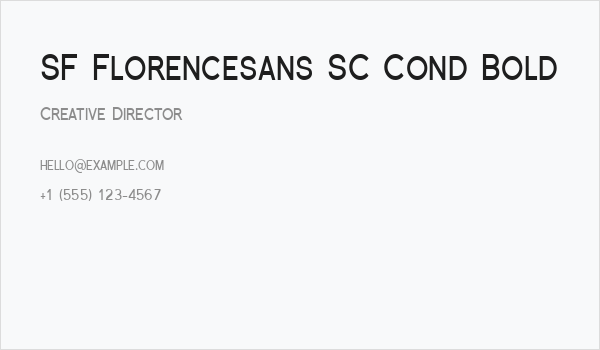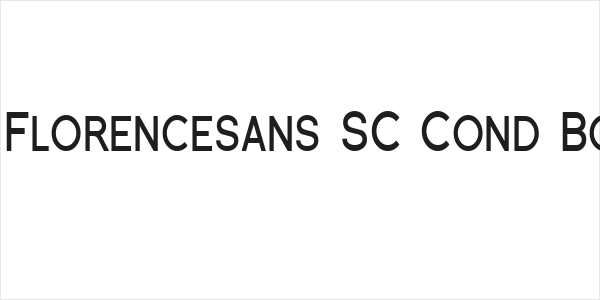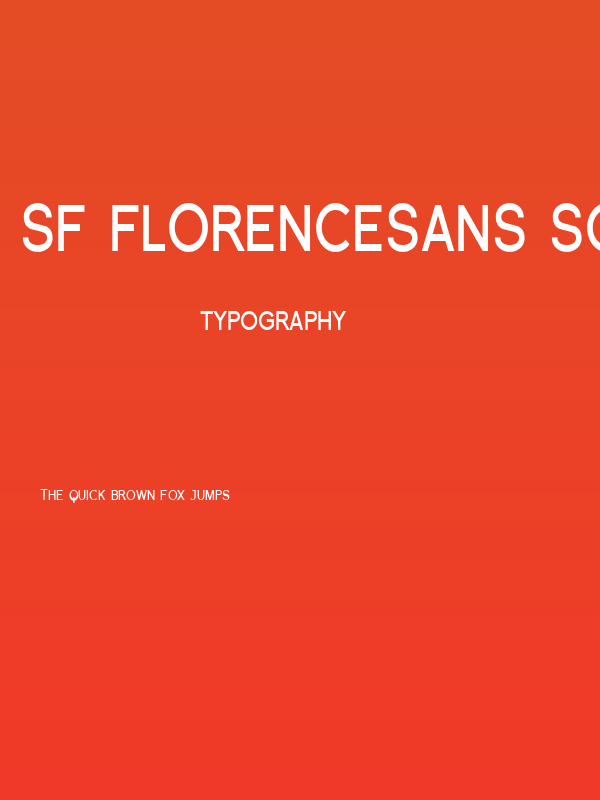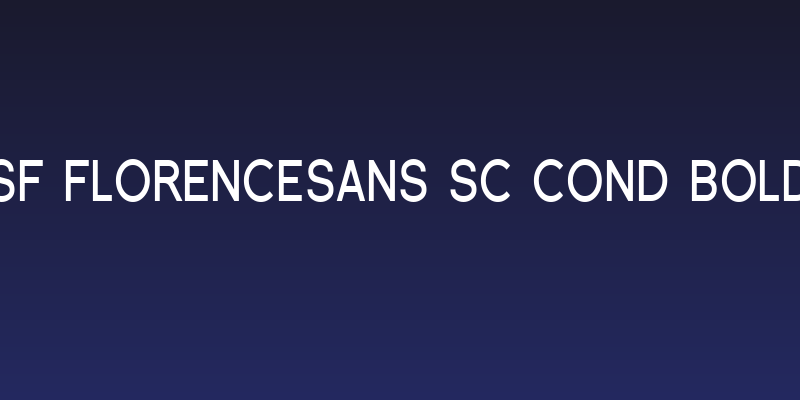
SF Florencesans SC Cond Bold Font
SF Florencesans SC Cond Bold Description
This font features a clean and modern sans-serif design with a condensed structure, making it ideal for space-saving applications. The bold weight provides a strong and impactful appearance, suitable for headlines and titles. The characters are evenly spaced, ensuring readability and clarity. The uniform stroke width contributes to a low contrast, enhancing its contemporary style. The font includes a full set of uppercase and lowercase letters, numerals, and a variety of special characters, offering versatility for different design needs.
| Proposed Projects | Ideal for branding, advertising, posters, and web design where a strong and modern look is desired. |